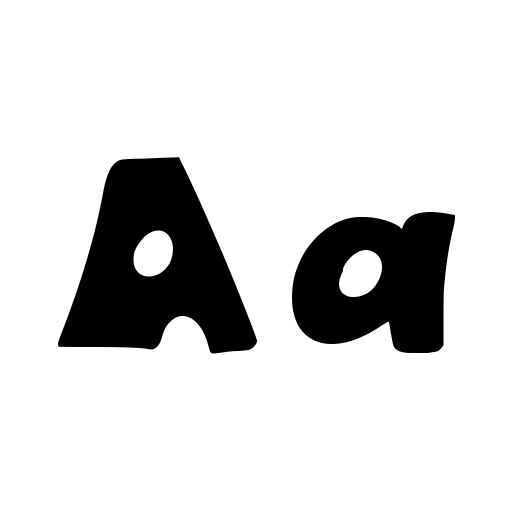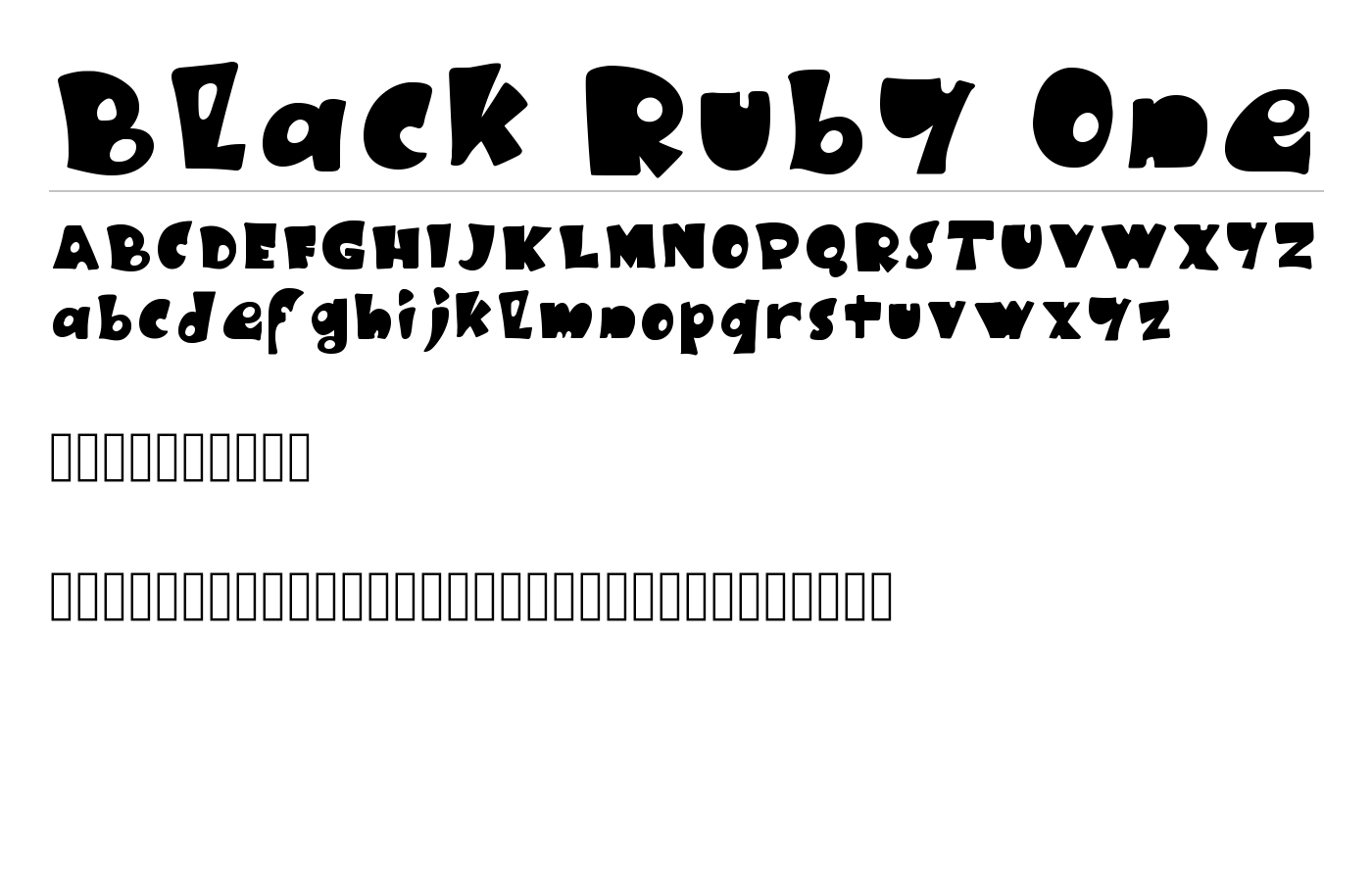
Black Ruby One is a bold, playful sans serif font with quirky, irregular shapes that give it a fun and approachable personality. Its chunky, solid letterforms and uneven stroke widths make it perfect for eye-catching headlines, logos, and creative projects that seek a whimsical, informal vibe. This font works well in designs targeting children’s products, casual branding, and lively posters where a friendly and energetic feel is desired.
Black Ruby One Font
About Black Ruby One Font
| Font family | Black Ruby One Font |
| Designer | Martin Steiner |